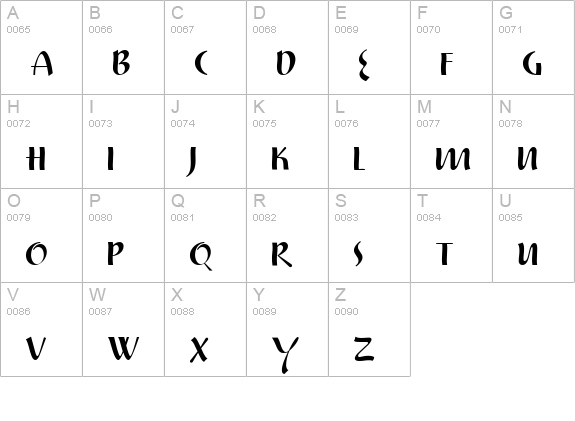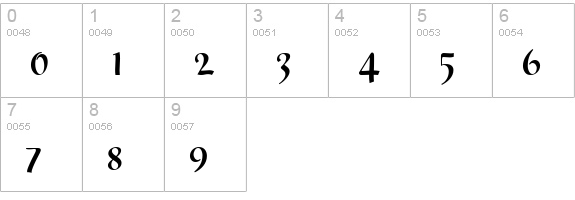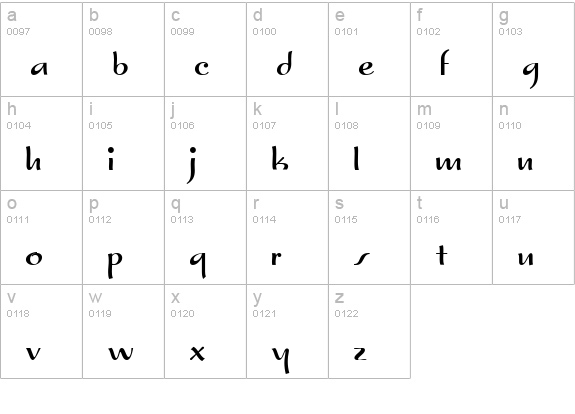
Shishka Bob NF Medium Font Details
Shishka Bob NF Medium is a balanced, medium-weight variant in the Shishka typeface family \xE2\x80\x94 well suited to sub-headlines, navigation, and balanced editorial work.
Shishka Bob NF Medium font is a beautifully designed typeface that exudes elegance and sophistication. With its smooth curves and balanced letterforms, this font is perfect for adding a touch of refinement to any project. The medium weight of Shishka Bob NF is versatile and can be used for a variety of purposes, including headlines, body text, and even logos. Its clean and legible appearance ensures that your message will be conveyed clearly and effectively. One of the best features of Shishka Bob NF Medium font is that it is free! That's right, you can download this stunning font at no cost from FontsMarket.com. This means that you can enhance your designs with a premium quality font without breaking the bank. Whether you're a professional designer looking to add a touch of sophistication to your work, or a casual user in search of a font that stands out, Shishka Bob NF Medium font is the perfect choice. Its free availability makes it accessible to everyone, ensuring that you can create stunning designs without any limitations. So why wait? Download Shishka Bob NF Medium font today from FontsMarket.com and elevate your designs to new heights with this timeless and elegant typeface.